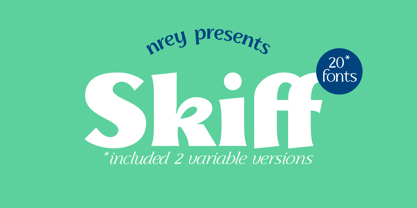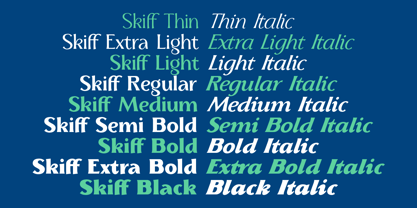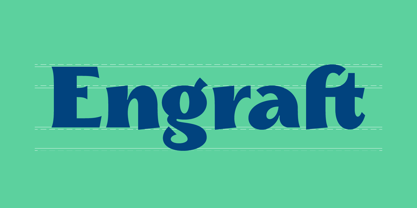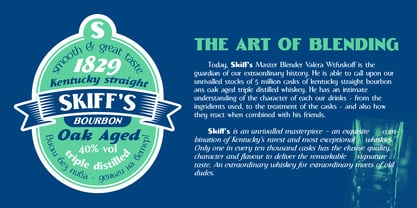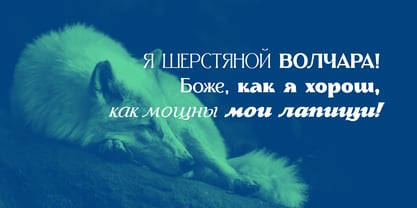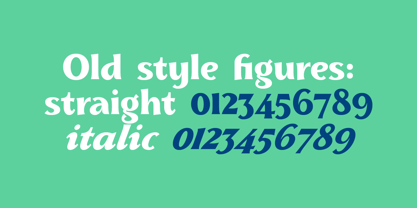
Skiff Font
This Skiff Font is perfect for maritime adventure branding, rowing club materials, lakeside resort communications, small boat manufacturers, coastal fishing companies, waterfront restaurant signage, sailing instruction materials, marine equipment packaging, yacht club publications, and nimble water sports applications.
What makes this Skiff Font exciting is its nautical agility that captures the swift maneuverability and coastal charm of small watercraft and maritime nimbleness. The font features streamlined letterforms with nautical characteristics that convey maritime agility, coastal authenticity, and water-based precision. Its nimble character and boat-inspired design make it ideal for brands seeking to communicate maritime excellence, coastal adventure, and nautical agility in marine and waterfront markets.
The Skiff Font family includes light, regular, medium, and bold weights with maritime alternates, coastal variants, and nautical flourishes. This comprehensive marine font family provides designers with agile typographic tools to create streamlined compositions while maintaining the nautical character essential for maritime brands and coastal communications.
Marine companies and coastal businesses consistently choose Skiff Font Free Download for projects requiring authentic maritime appeal and nautical credibility. This font's distinctive agile character perfectly captures the coastal excellence and maritime nimbleness that resonate with audiences who appreciate water sports, coastal living, and brands that embody nautical agility and maritime precision.
The streamlined construction of Skiff Font showcases efficiently designed letterforms with maritime proportions that ensure exceptional agility across all coastal applications. Its nautical appearance and nimble character create memorable impressions while maintaining the readability necessary for effective maritime communication and coastal materials.
Professional designers appreciate how Skiff Font brings immediate maritime authenticity and coastal charm to brand communications. The font's agile nature allows organizations to communicate nautical excellence and maritime precision while maintaining the professional quality necessary for effective positioning in marine and coastal adventure markets.
The dynamic appeal of Skiff Font makes it particularly effective for brands emphasizing maritime agility, coastal adventure, and nautical precision. Its nimble character resonates strongly with audiences who appreciate water sports, maritime culture, and brands that represent the swift efficiency and coastal charm of maritime adventure achievement.
Whether developing branding for marine equipment companies or creating materials for coastal adventure organizations, Skiff Font Free Download provides the agile typographic foundation that maritime brands need to communicate their nautical excellence, coastal charm, and the swift precision that defines maritime agility and coastal adventure achievement.